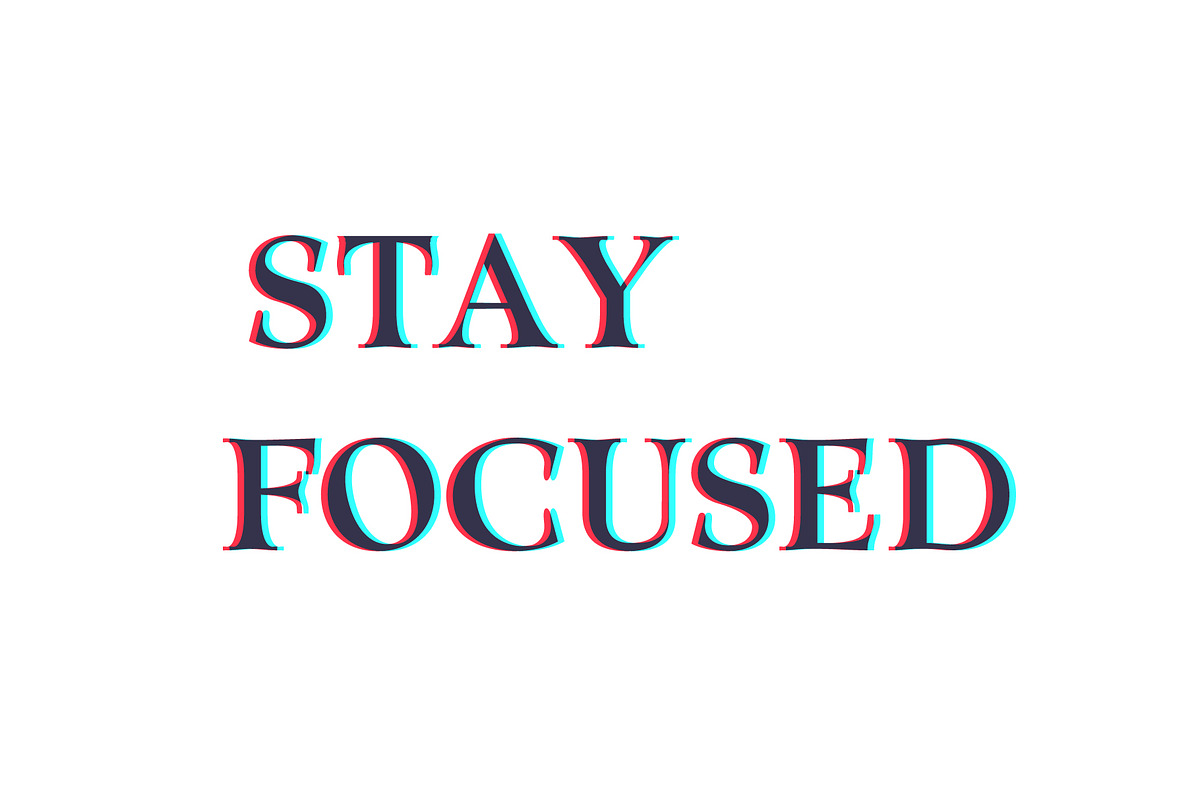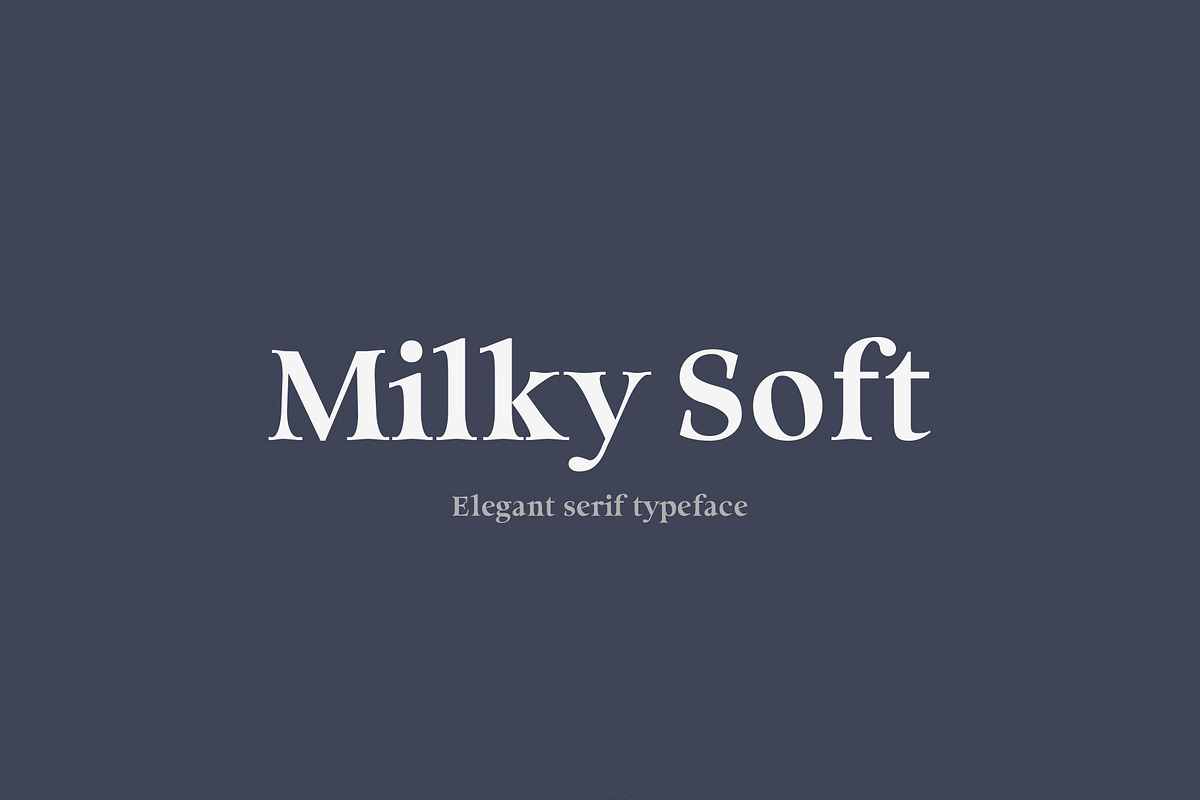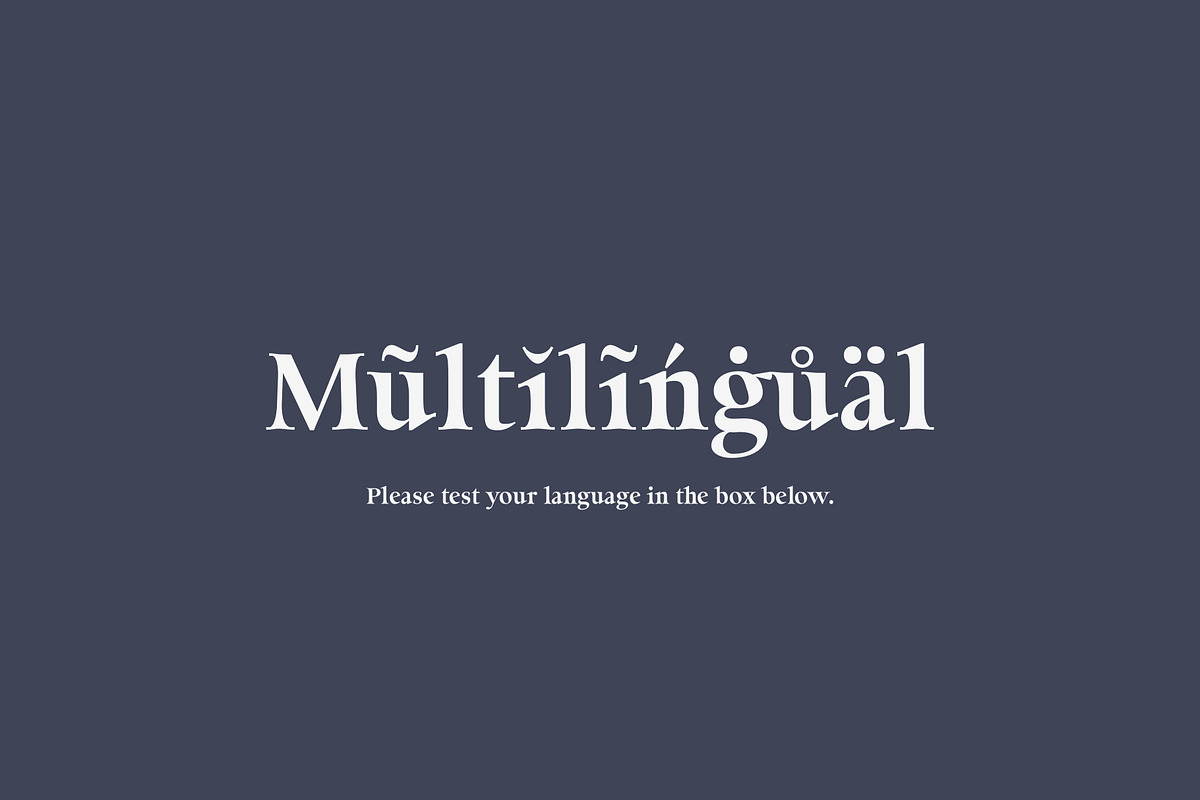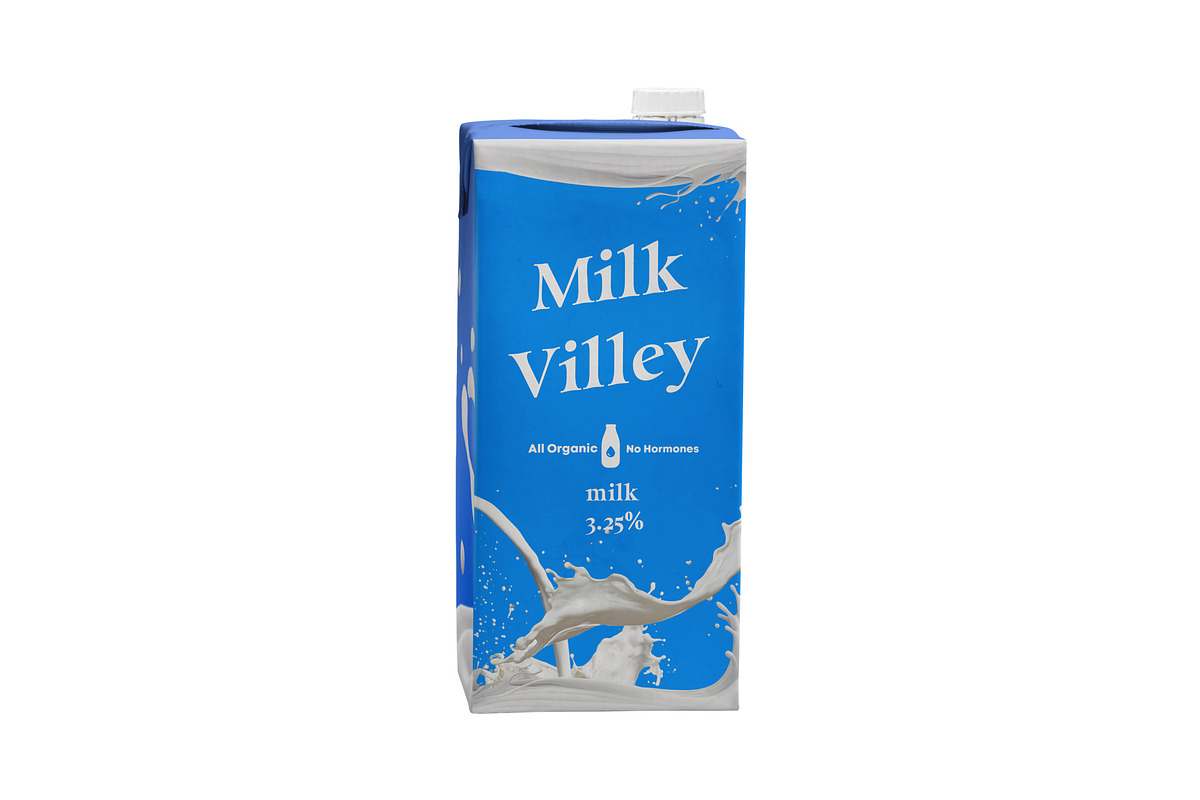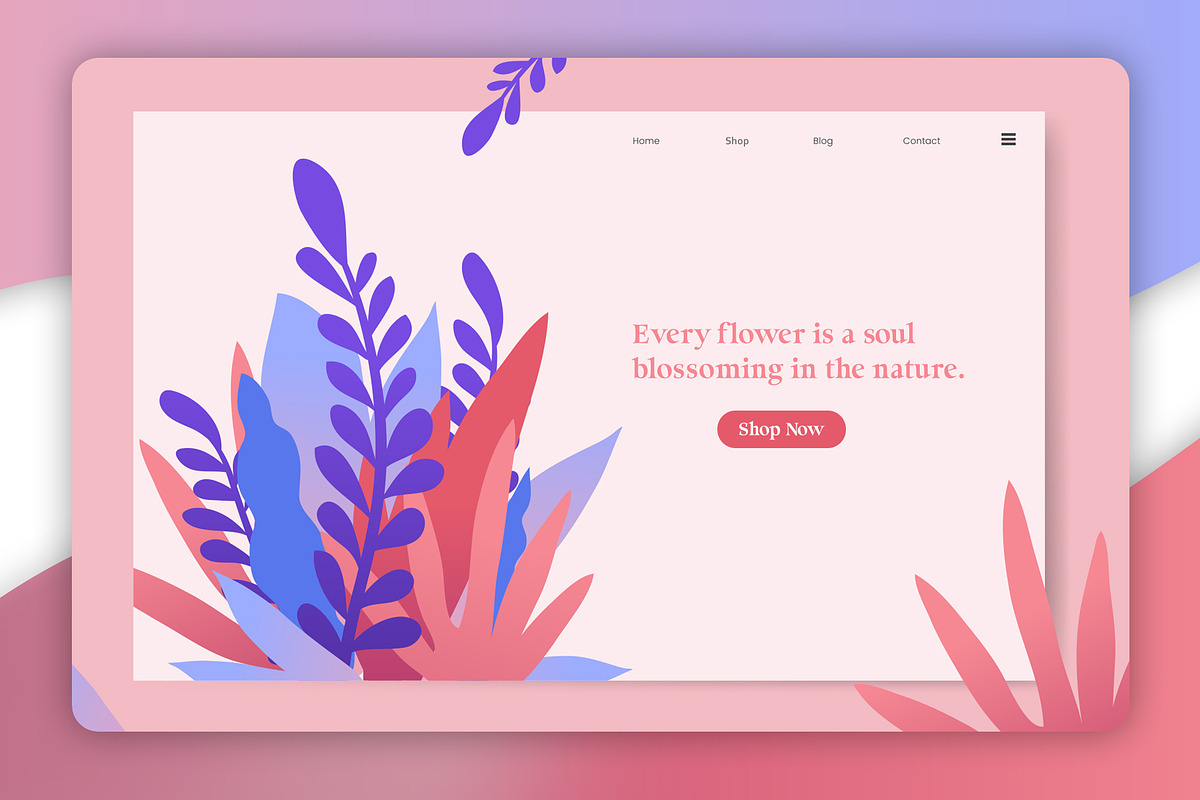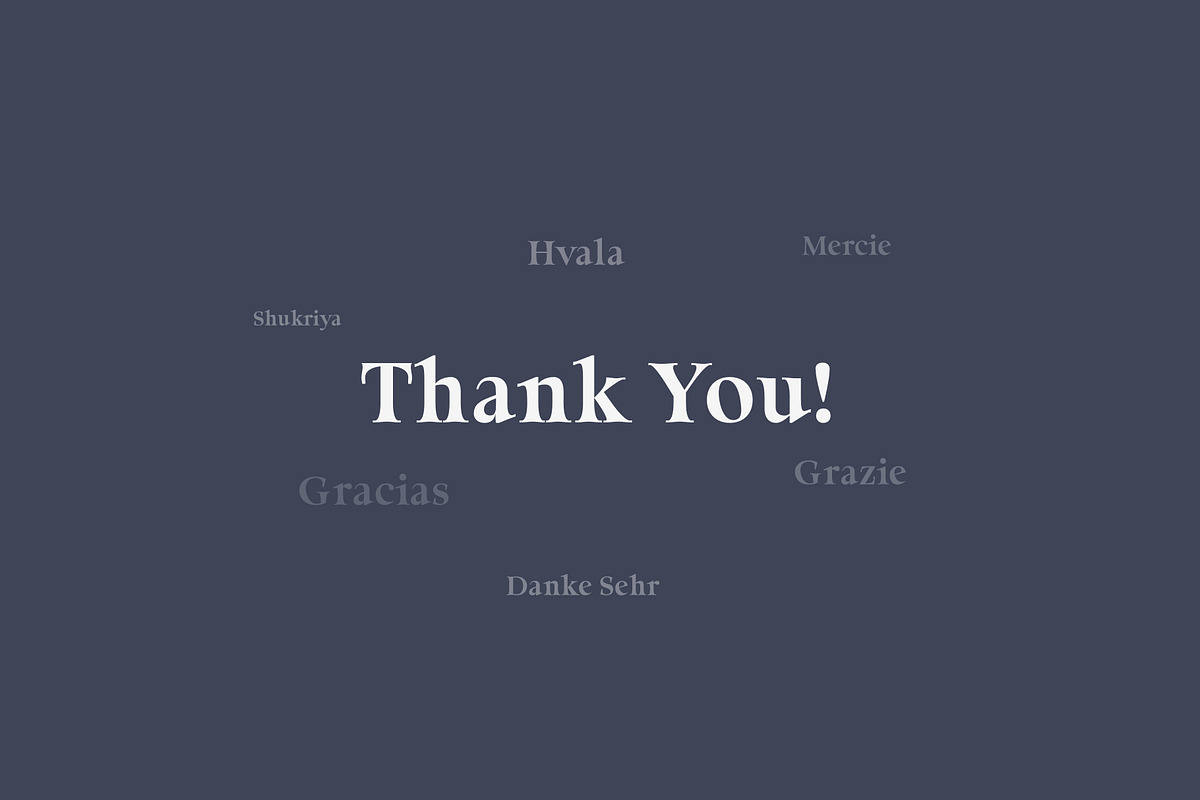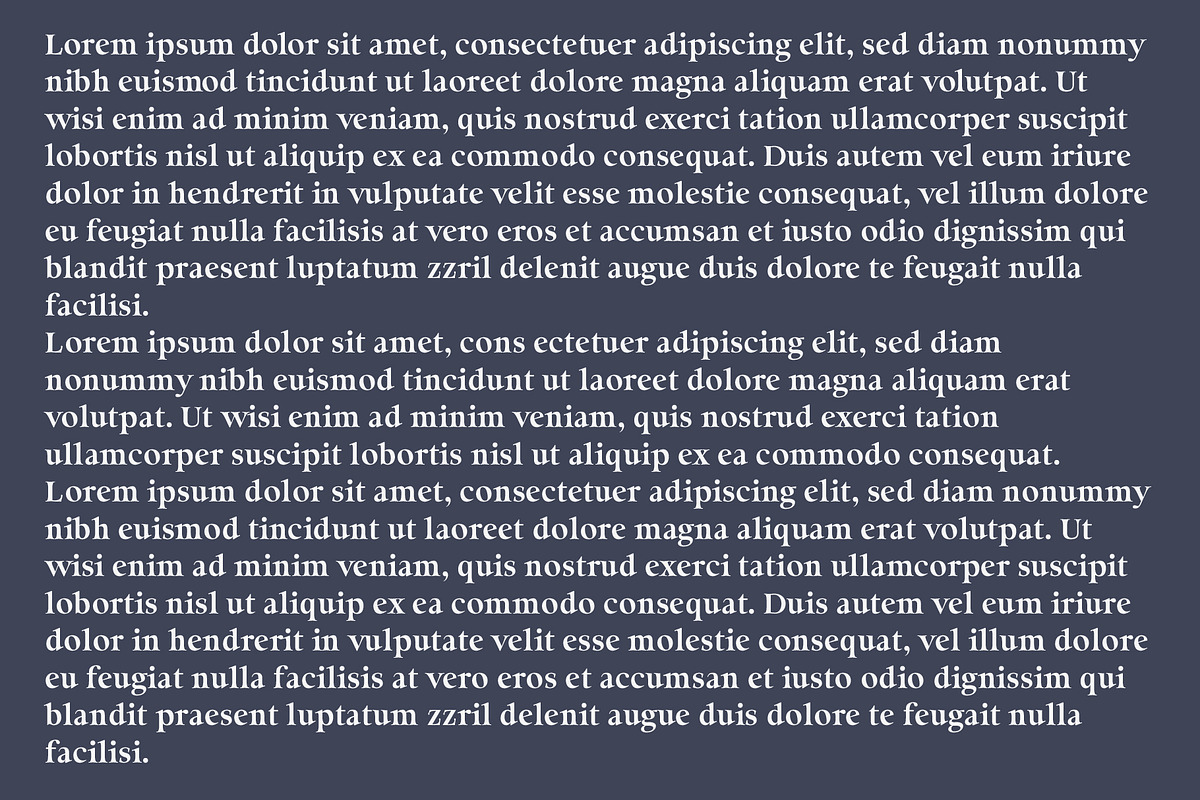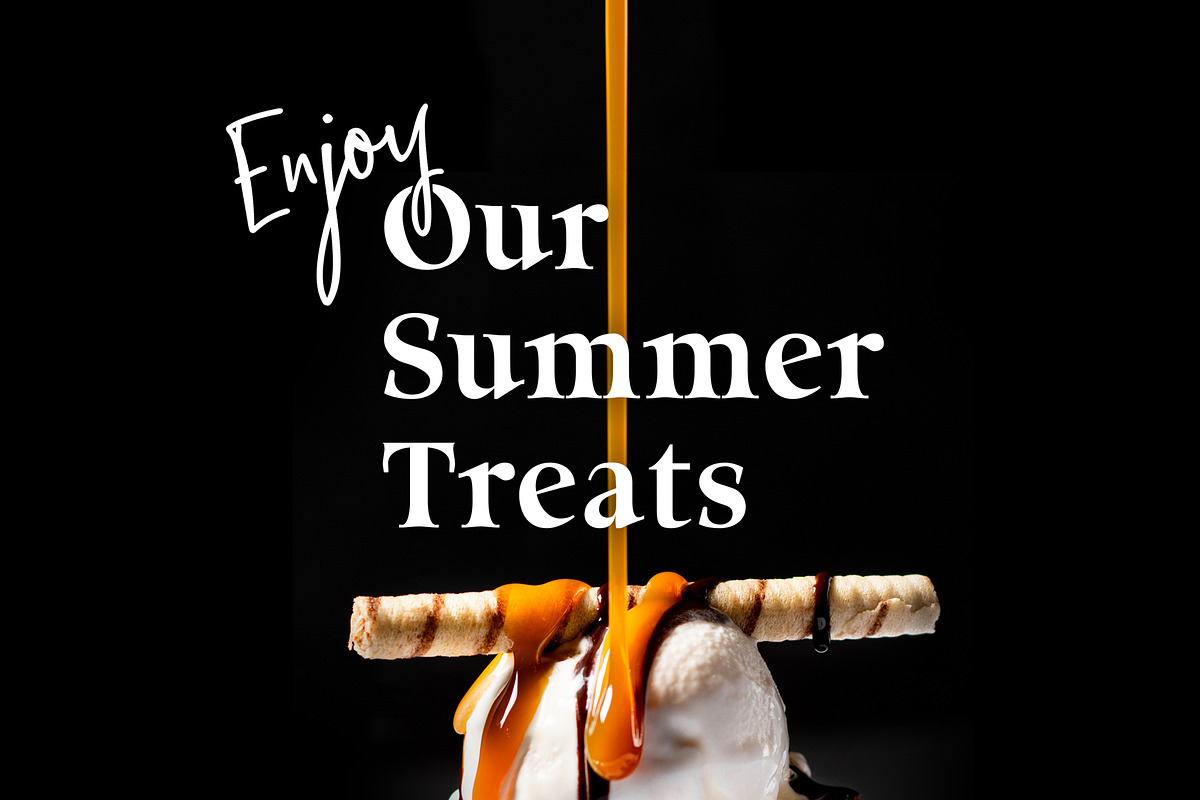
Milky Soft - Elegant Serif Font
Milky Soft is an elegant serif typeface.
The Milky soft font will perfect for many projects: fashion, magazines, logo, branding, photography, wedding invitations, quotes, blog header, poster, advertisements, etc.
Uppercase & lowercase letters, numbers, punctuation